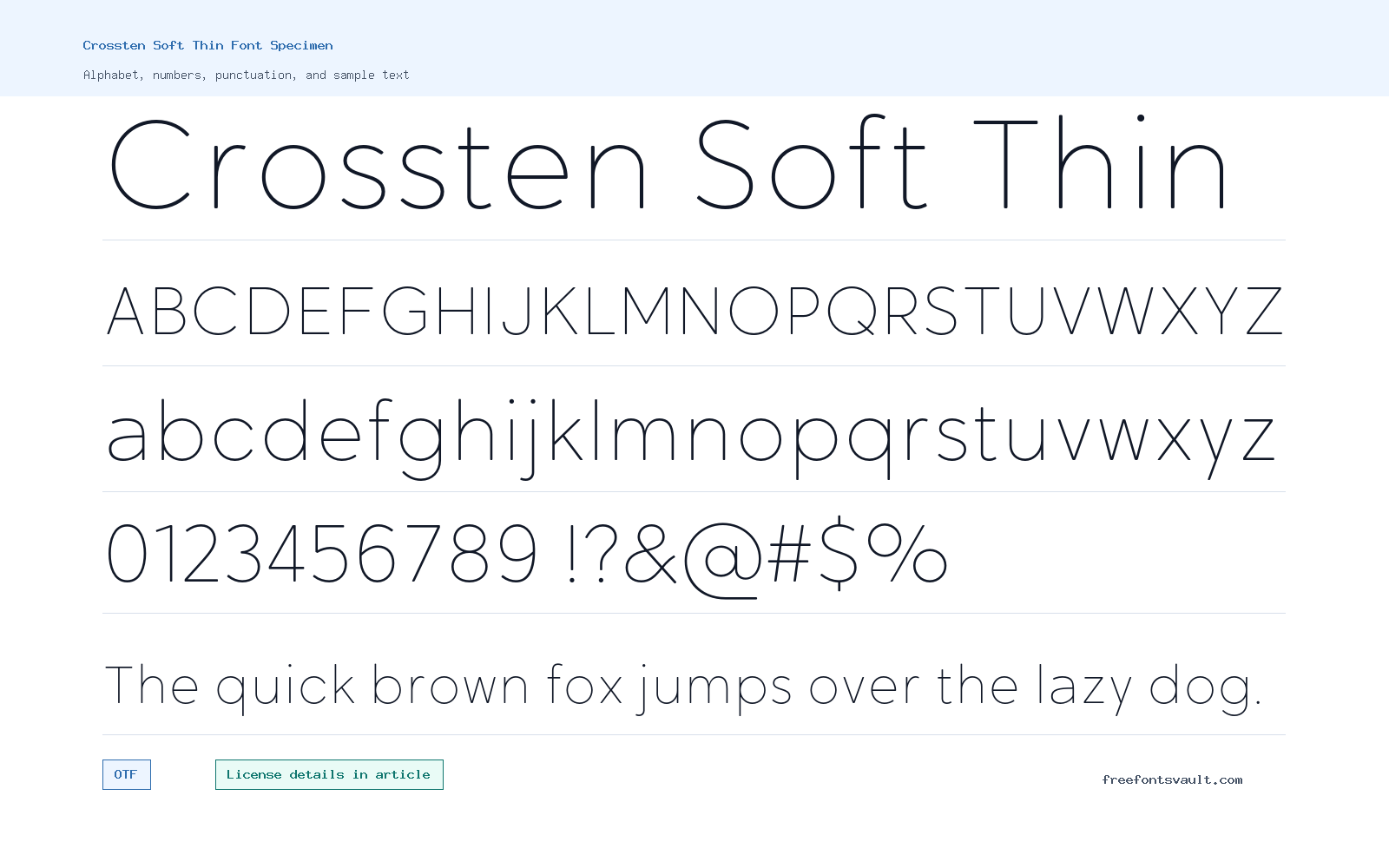
Crossten Soft Thin
• Designer Emre Guven
• Foundry Emre Güven
Crossten Soft Thin is a very light, rounded geometric sans-serif from the Crossten Soft family. Its thin strokes and softened shapes give it a clean, airy tone for designs that need a modern look without feeling sharp.
About Crossten Soft Thin
Crossten Soft belongs to a sans-serif family by Emre Güven. Fontspring describes the wider family as a modern geometric sans with a softer, single-spaced feel, and lists it with 20 styles and 370 glyphs. This Thin style sits at the lightest end of that system, so it works best when you want quiet structure, generous spacing, and a polished minimal feel.
Use Crossten Soft Thin for short text rather than dense reading. It can look elegant in clean headings, app screens, product labels, packaging, editorial layouts, and brand mockups where the text has enough size and contrast. Because the strokes are delicate, test it carefully on small screens, busy backgrounds, and low-contrast colors. Pair it with a stronger weight from the same family or a readable text face when you need body copy.
• Thin 100-weight style with rounded geometric sans-serif shapes
• Part of the larger Crossten Soft family associated with Emre Güven
• Clean, soft tone for headings, labels, UI mockups, and visual identity tests
• Minimal headings and display text
• App and web interface mockups
• Packaging and product labels
• Editorial title treatments
• Soft geometric branding concepts
• Pairing with heavier sans-serif weights for contrast
Crossten Soft is associated with designer and foundry name Emre Güven, also written as Emre Guven on some font sites.
Who designed Crossten Soft Thin?
The Crossten Soft family is credited to Emre Güven. Some sources write the name without the accent as Emre Guven.
What kind of font is Crossten Soft Thin?
It is a thin, rounded geometric sans-serif style. It has a clean and soft appearance, with a lighter feel than regular or bold sans-serif weights.
What is Crossten Soft Thin best used for?
It is best for short, high-visibility text such as headings, UI mockups, packaging, product labels, editorial titles, and light branding tests.
Can I use Crossten Soft Thin for body text?
It is not the best choice for long reading. The thin strokes can become hard to read at small sizes, so use it for display text and pair it with a more readable text font.